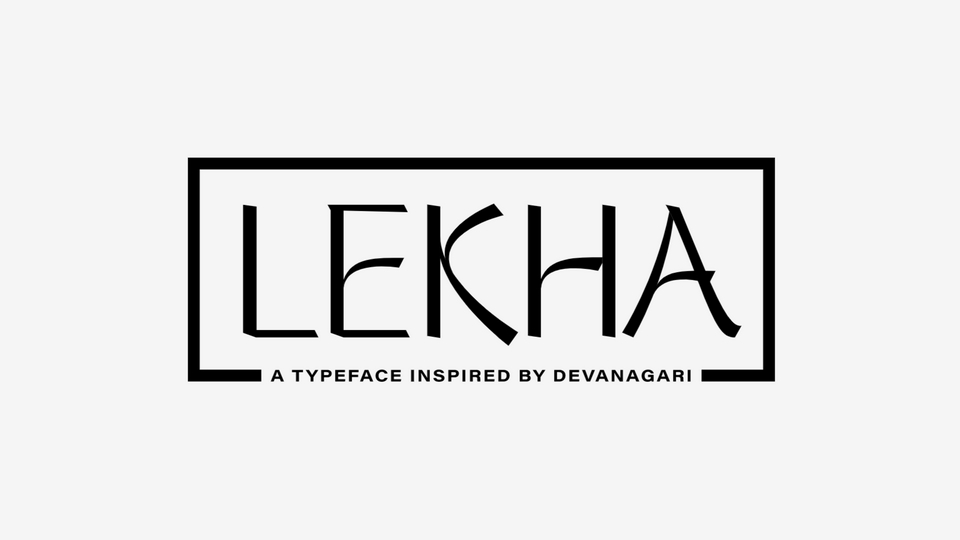
Download Lekha font, a Devanagari-inspired typeface. Lekha hopes to find its humble place among the designer’s choice of fonts when he intends to infuse a sense of Indian culture into his work.
Designer: Leslie Raju